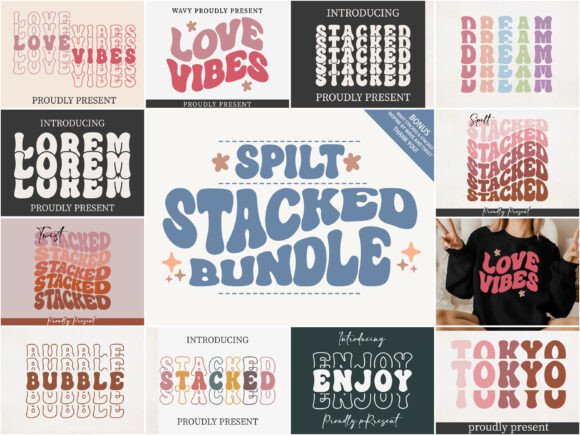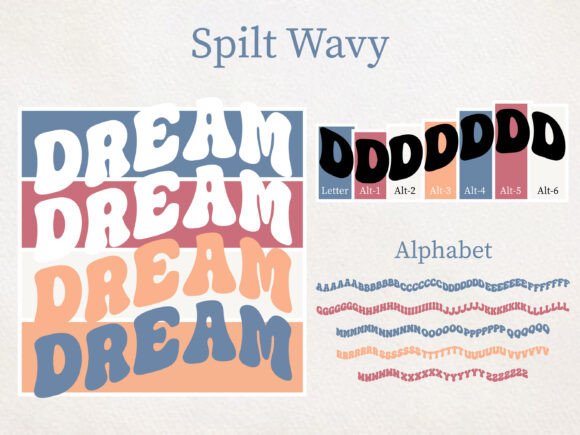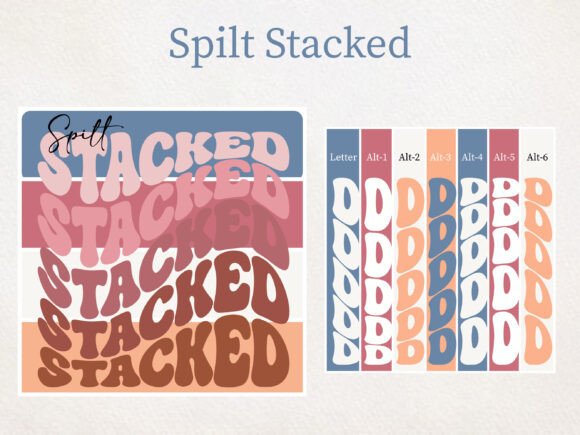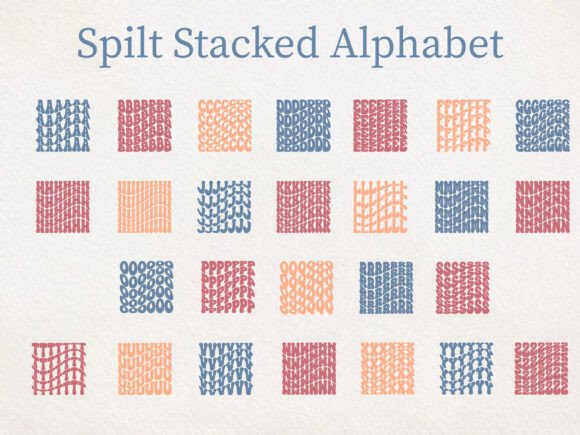
Spilt Stacked Bundle Font
About the Spilt Stacked Bundle Font
Crafted with precision, the Spilt Stacked Bundle Font is ready to bring your ideas to life. Spilt Stacked Bundle is a Groovy font style in a stacked effect. Wavy is an incredibly cool display font. It’s had alternate glyphs to help create trendy custom text designs. This font will be an amazing choice for lovely touch, Fun, and perfect for everyone.
Spilt Stacked Bundle Font Usage Examples